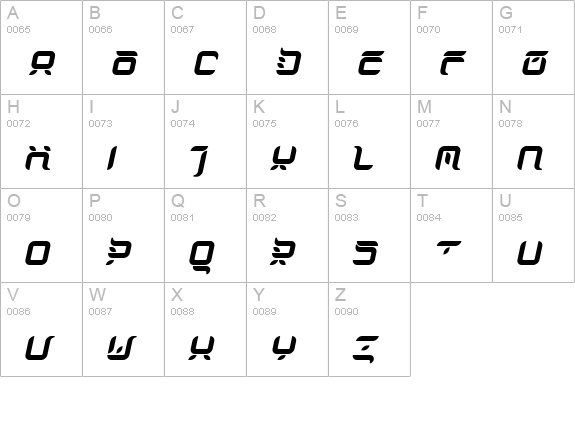
DorisOrangeItalic Font Details
Introducing DorisOrangeItalic font - a sleek and modern typeface perfect for adding a touch of elegance to your designs. This italic variation of the DorisOrange font family exudes sophistication and style, making it ideal for use in branding, invitations, headlines, and more. Its unique letterforms and subtle curves give off a sense of refinement, while still remaining highly readable. What's even better is that DorisOrangeItalic font is available for free download at FontsMarket.com! Yes, you read that right - this stunning font can be yours at no cost, allowing you to elevate your projects without breaking the bank. Don't miss out on this opportunity to enhance your designs with the beauty and grace of DorisOrangeItalic font. Download it now and let your creativity shine!